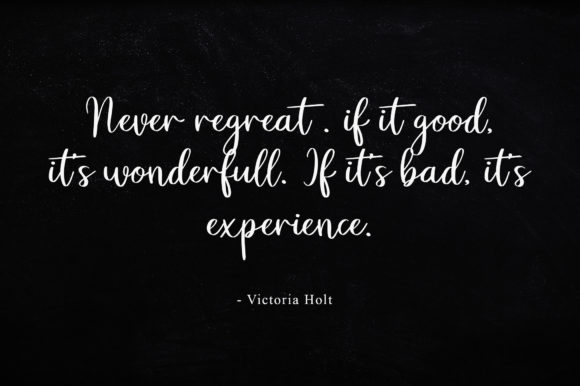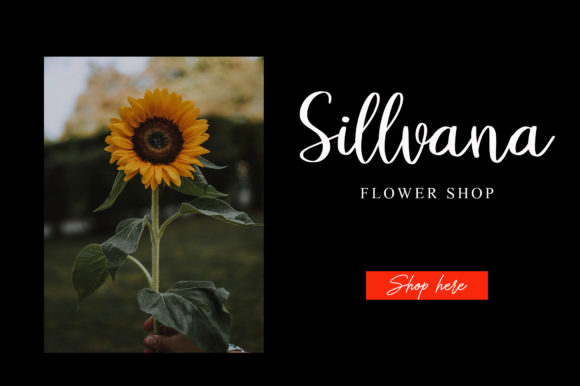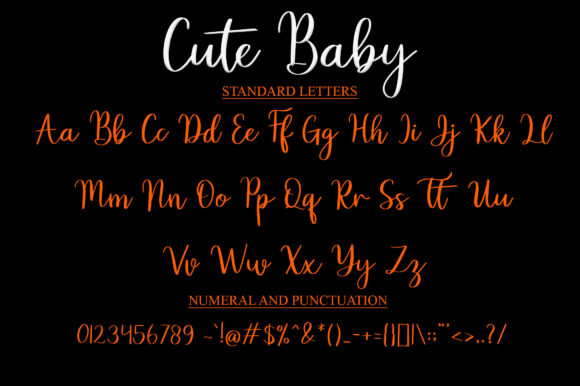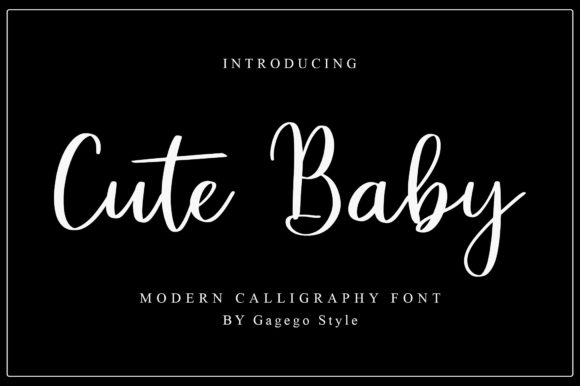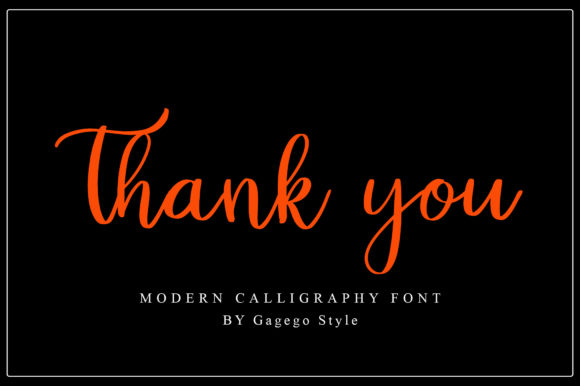
Celebrating the Delicate Charm of Cute Baby Font
Have you ever been brainstorming a new design project, only to be struck by the perfect idea at 3 am? That’s exactly what happened to me when I stumbled upon Cute Baby Font. This lovely script font is more than just a pretty face – it’s a game-changer for designers looking to add a touch of elegance to their work.
Cute Baby Font is a delicate, hand-crafted script font designed to bring a refreshing look to your designs. Whether you’re creating a wedding invitation, a children’s book, or a social media campaign, this font is sure to captivate your audience. Its gentle curves and subtle flourishes make it a valuable asset for any designer looking to add a touch of sophistication to their work.
Cute Baby Font Key Features
- Font Family: Cute Baby Font is a unique, hand-drawn font designed to resemble baby’s handwriting.
- Unique Characteristics: Features irregular, childlike letterforms with varying line widths and stroke styles, giving it a playful and whimsical feel.
Cute Baby Font Review
I must say, I was immediately drawn to Cute Baby Font’s playful and whimsical aesthetic. The ✨ rounded edges and soft curves create a warm, inviting feel that’s perfect for designing nursery decor, children’s books, or any project where a sweet, innocent tone is desired.
- The font is highly legible, even at smaller sizes.
- The varied weight options allow for a range of creative possibilities.
- The font’s simplicity makes it easy to pair with other designs and fonts.
However, as with any font, there are some limitations to consider.
- The font’s cuteness can be overwhelming, making it less suitable for more serious or complex designs.
- The lack of bold or italic options for certain weights can limit its versatility.
- The font may not be ideal for body text or extended passages, as it can be tiring to read.
Overall, I think Cute Baby Font is a wonderful addition to any designer’s toolkit, but it’s essential to use it judiciously and in the right context. With a little creativity and restraint, this font can add a delightful touch to your designs.
Getting the Most Out of Cute Baby Font
To get the most out of Cute Baby Font, consider the following tips:
- Pair the font with a bold or cursive font for contrast.
- Use the font for headings and titles to create visual hierarchy.
Common Use Cases for Cute Baby Font
Cute Baby Font is commonly used for:
- Baby shower invitations and decorations.
- Children’s book covers and illustrations.
Alternatives to Cute Baby Font
Great Vibes is a modern, handwritten font suitable for designs that require a friendly and approachable feel. It is ideal for use in social media graphics, invitations, and other materials where a casual tone is desired. Great Vibes is more versatile than Cute Baby Font, with a wider range of letterforms and a more consistent style.
Alex Brush is a beautiful, handwritten script font that exudes elegance and sophistication. It is perfect for use in high-end designs, such as wedding invitations, luxury branding, and other materials where a touch of refinement is required. While Alex Brush shares some similarities with Cute Baby Font in terms of its handwritten style, it is more refined and less playful.
Carolyna Pro is a modern, cursive font that is both elegant and feminine. It is ideal for use in designs that require a touch of sophistication and glamour, such as fashion branding, beauty packaging, and other materials where a sense of luxury is desired. Carolyna Pro is more polished than Cute Baby Font, with a more consistent style and a wider range of letterforms.